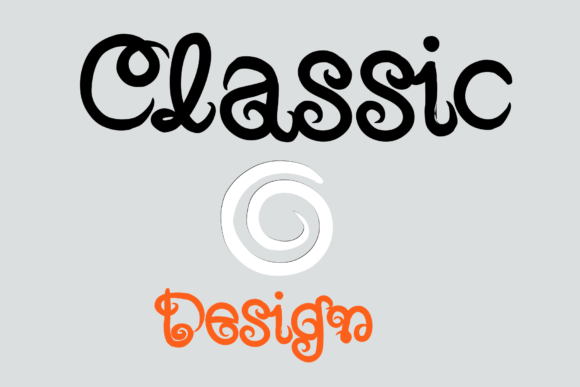
Behold, the Classic Design Font, a calligraphy masterpiece from arnon.021993! This elegant script font dances across your screen, an artistic symphony of curls and sophistication. Prepare to unleash your creativity with this font's magic, a perfect tool for those with a daring spirit.
Step into a world of mystique as the Classic Design Font weaves its enchantment into your designs. Its intricate swirls and flourishes ignite the imagination, effortlessly capturing the essence of creativity. Unleash your inner artist and dance alongside this font's rhythm, creating designs that speak to the soul.
With the Classic Design Font, transform the ordinary into the extraordinary. Whether it's a heartfelt invitation that whispers promises of joy, an apparel design that radiates individuality, or a magazine spread that captivates readers' hearts, this font becomes your faithful companion, guiding your vision toward greatness.
This versatile font is a storyteller, its curves and strokes painting vivid tales upon your digital canvas. Craft quotes that leave an imprint on the heart, design logos that exude timeless elegance, or conjure social media posts that dance with grace and charm. The Classic Design Font is your muse, ready to bring your words to life.
The Classic Design Font is not just a tool; it's an extension of your creative soul. Its PUA encoding grants you effortless access to a world of glyphs and swashes, allowing you to unleash your imagination without limits. Explore the depths of your creativity as you weave intricate patterns, add a touch of whimsy to your designs, and turn ordinary text into extraordinary works of art.
Dare to be different, embrace the extraordinary, and let the Classic Design Font ignite your passion for the extraordinary. Its sophisticated charm and undeniable beauty await your touch, ready to transform your designs into masterpieces that transcend the ordinary. Seize this opportunity to elevate your creativity and leave an unforgettable mark on the world.